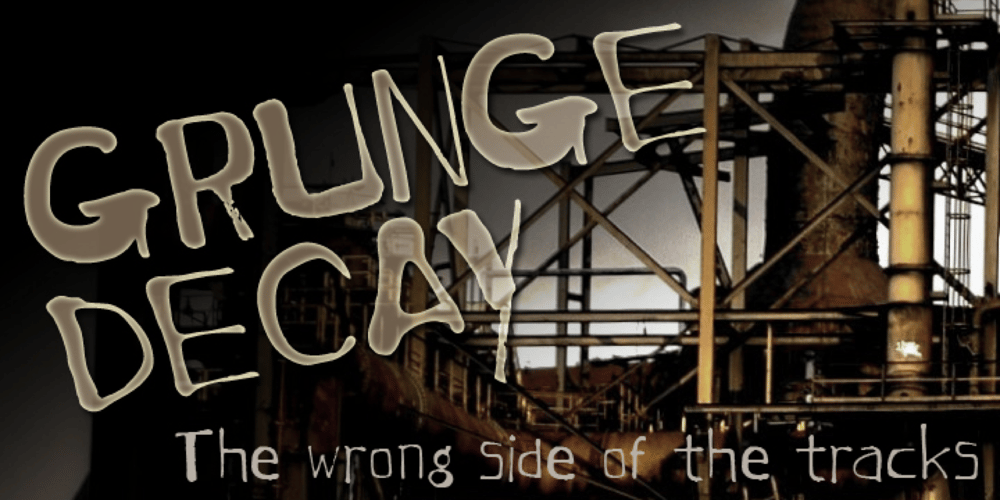
Grunge Decay Font Family was designed by Natsuko Hayashida and published by Okaycat. Grunge Decay contains 1 styles and family package options. Grunge Decay is an urban font with a unique look. It creates a rugged and unusual feel to with its own character & stylization. Grunge Decay is extended, containing West European diacritics and ligatures, making it suitable for multilingual environments & publications.